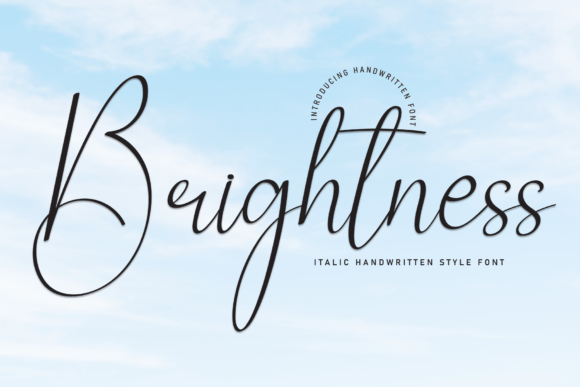
Introduction to Brightness Font
Brightness is a sweet and friendly handwritten display font.
Cute and fun, this font is ideal for writing wedding invitations, cards, or any other design that might need a fun touch .